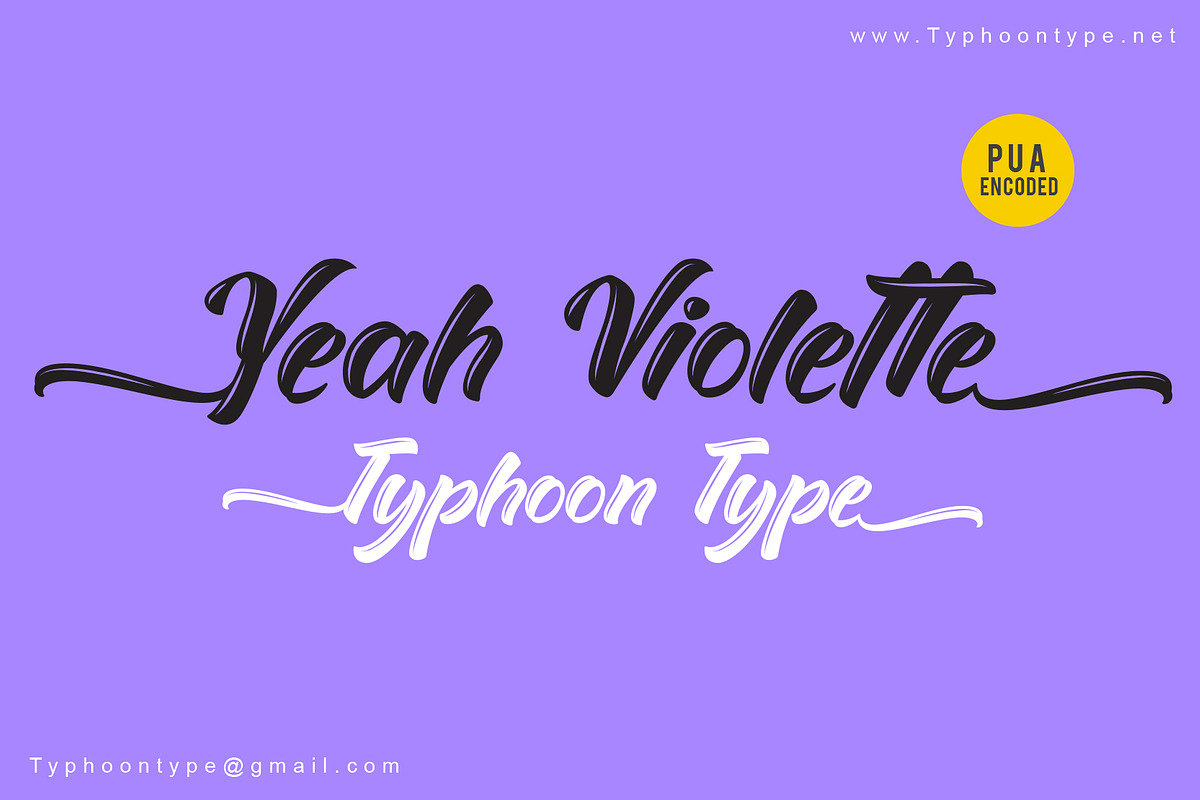
Yeah Violette font
Yeah Violette This font perfect for logos, name tag, advertising, product packaging, clothing, social media & greeting cards.
Why Yeah Violette font is worth a look
Yeah Violette font by TyphoonStudio fits naturally into Branding, posters, packaging, typography.